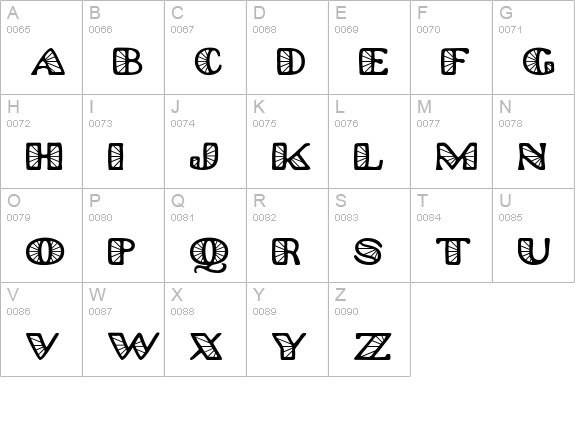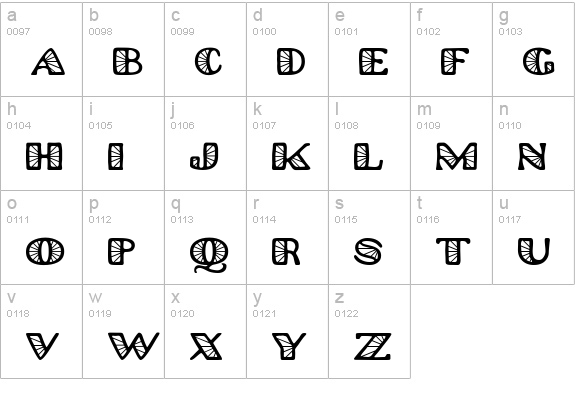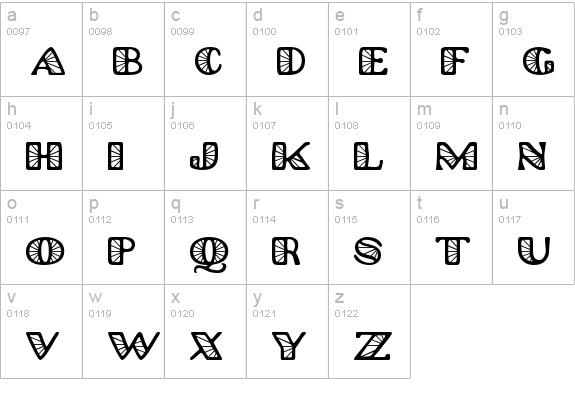
Introducing the exquisite Platinum Hub Caps Spoked font, a timeless and elegant typeface that exudes sophistication and style. With its intricate spoked design and luxurious appearance, this font is perfect for adding a touch of class to any project or design. The Platinum Hub Caps Spoked font is versatile and can be used for a wide range of applications, from branding to editorial design. And the best part? This stunning font is available for free download at FontsMarket.com. Don't miss this opportunity to enhance your projects with the Platinum Hub Caps Spoked font and elevate your designs to the next level. Download it now and let your creativity shine with this premium typeface.